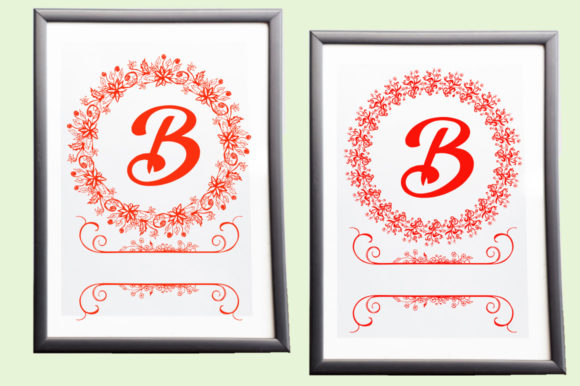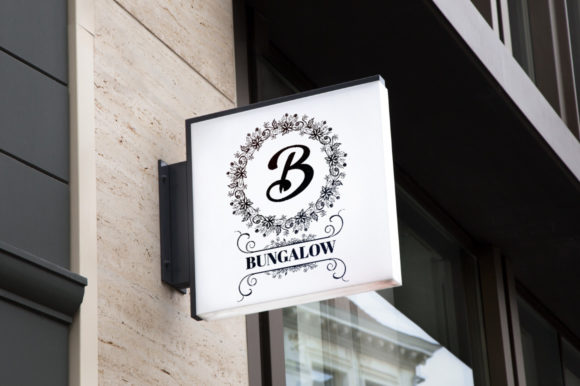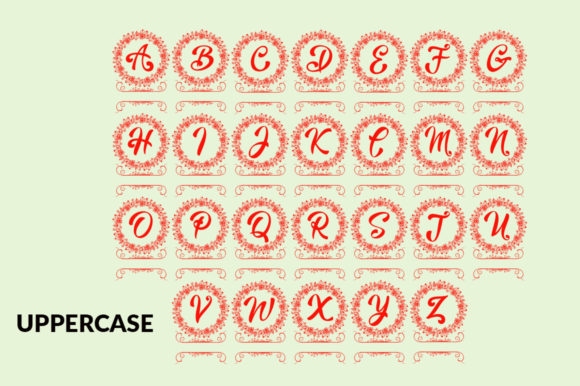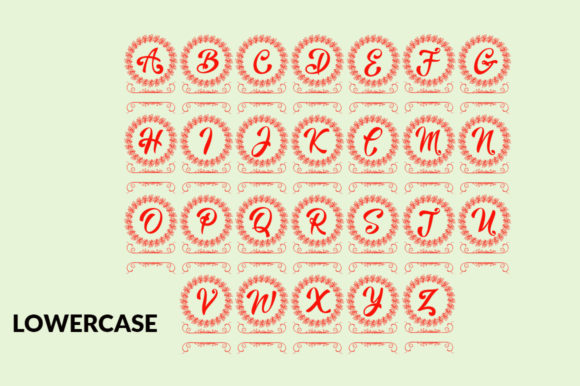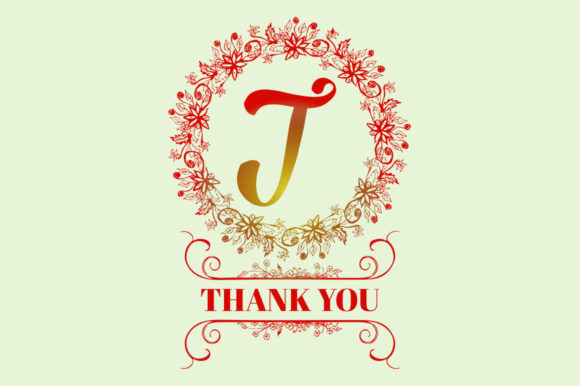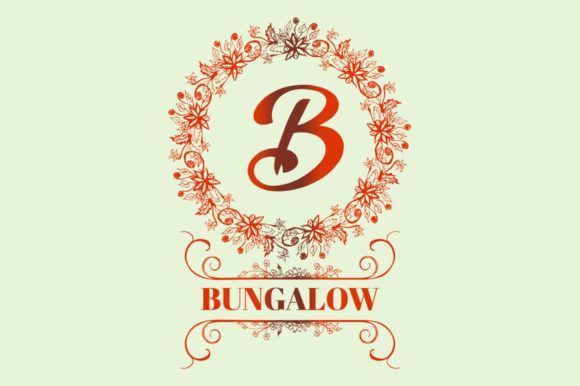
Bungalow Font: Elevate Your Design Projects with Luxury and Elegance
Are you looking for a font that can add a touch of luxury and sophistication to your design projects? Look no further than the Bungalow Font. This highly detailed and dazzling decorative font is perfect for designers and crafters who want to create stunning visuals that leave a lasting impression. With Bungalow Font, the only limit is your imagination.
What is Bungalow Font?
Bungalow Font is a decorative font designed to bring a sense of luxury and elegance to any design project. Its intricate details and ornate features make it perfect for creating high-end visuals that exude sophistication and refinement. Whether you’re working on a branding project, packaging design, or marketing materials, Bungalow Font is sure to make your designs stand out.
Key Features of Bungalow Font
- Highly detailed and intricate design: Bungalow Font features intricate details and ornate features that give it a luxurious and sophisticated look.
- Versatile and flexible: This font is perfect for a wide range of design projects, from branding and packaging to marketing materials and more.
- Easily readable: Despite its ornate features, Bungalow Font is easily readable, making it perfect for body text and headlines.
- Supports multiple languages: Bungalow Font supports multiple languages, making it a great choice for designers working on international projects.
How to Use Bungalow Font in Your Design Projects
Bungalow Font can be used in a variety of design projects, including:
- Branding and logos: Use Bungalow Font to create a luxurious and sophisticated brand identity that stands out from the competition.
- Packaging design: Add a touch of elegance and refinement to your packaging designs with Bungalow Font.
- Marketing materials: Use Bungalow Font to create stunning marketing materials, such as brochures, flyers, and posters.
- Web design: Bungalow Font can be used in web design to create a luxurious and sophisticated online presence.
Tips for Getting the Most Out of Bungalow Font
Here are some tips for getting the most out of Bungalow Font:
- Use it sparingly: Bungalow Font is a decorative font, so use it sparingly to avoid overwhelming your design.
- Pair it with a simple font: Pair Bungalow Font with a simple font to create contrast and make your design more readable.
- Experiment with different colors: Bungalow Font looks great in a variety of colors, so experiment with different colors to find the one that works best for your design.